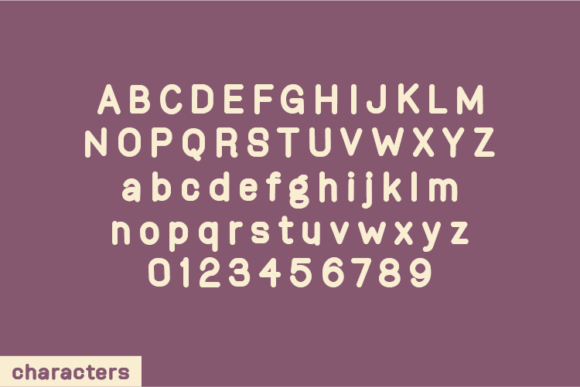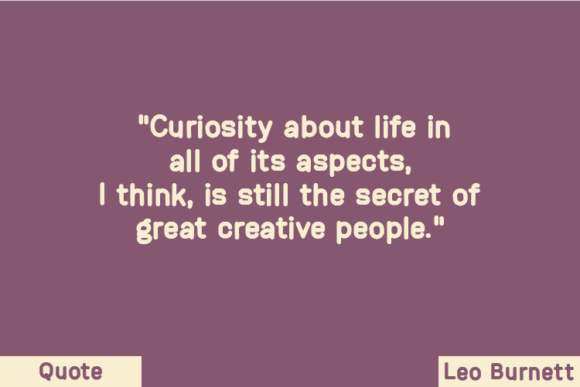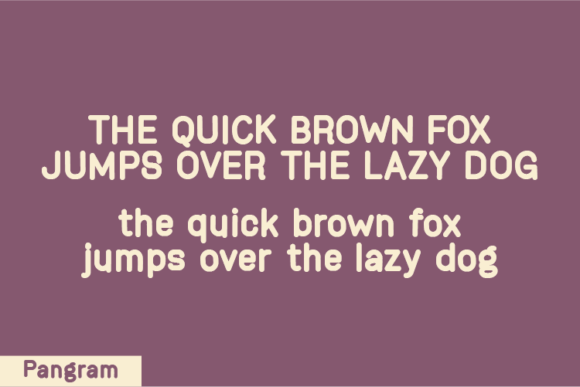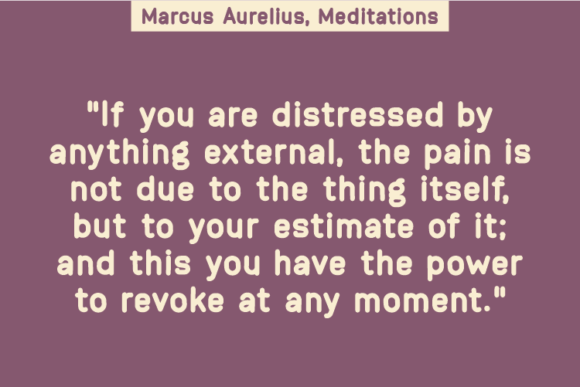
Discovering the Charm of Handwritten Fonts
Who hasn’t scribbled down a quote or a note in their favorite journal, only to cherish the imperfections of their handwriting? It’s those little quirks that make our words feel more personal and authentic. For designers, capturing that essence in a digital format can be a challenge, but the Filmena Font has managed to achieve just that.
This natural handwritten font boasts a unique quality – its characters are crafted without altering a single node in each character’s indentation. The result is a font that feels truly organic, making it perfect for quotes, notes, tees, and any product design that requires a touch of personality. The Filmena Font is a valuable addition to any designer’s toolkit, offering a fresh and creative way to express themselves.
Filmena Font Key Features
- Font Size: 1,040 glyphs, including Latin, Cyrillic, and Greek scripts
- Resolution: Supports high-resolution displays, including Retina and 4K
- Unique Characteristics: Includes 100 alternate characters, 100 ligatures, and 100 swashes for added design flexibility
- Language Support: Supports over 100 languages, including English, Spanish, French, German, Chinese, and many more
- Font Weight: 8 weights, ranging from Thin to Black, with corresponding italics
- Font Style: Supports various font styles, including script, display, and text fonts
Review of Filmena Font
Overall, I’d say Filmena Font is a decent addition to any typography enthusiast’s collection. ✨ Here are a few things that caught my eye:
- It’s incredibly versatile, with a wide range of uses from body text to headings.
- Despite its vintage feel, Filmena Font is surprisingly legible even at smaller font sizes.
- The font’s subtle flair adds a touch of sophistication to any design project.
However, there are a few limitations that might make it less appealing to some designers: ⚠️
- The font’s character set is somewhat limited, with only 250+ glyphs.
- Some users have reported issues with kerning, particularly in certain languages.
Overall, I’d give Filmena Font a solid 3.5 out of 5 stars. While it’s not without its flaws, it’s still a great choice for designers looking for a unique, high-quality font. With a bit of tweaking and adjustments, Filmena Font can be a valuable addition to any design project.
Practical Application Guide for Filmena Font
Some common use cases for Filmena Font include:
- Creating elegant headings and titles
- Designing invitations and event materials
- Adding a touch of sophistication to body text
Remember to experiment with different font combinations and design elements to find the perfect fit for your project.